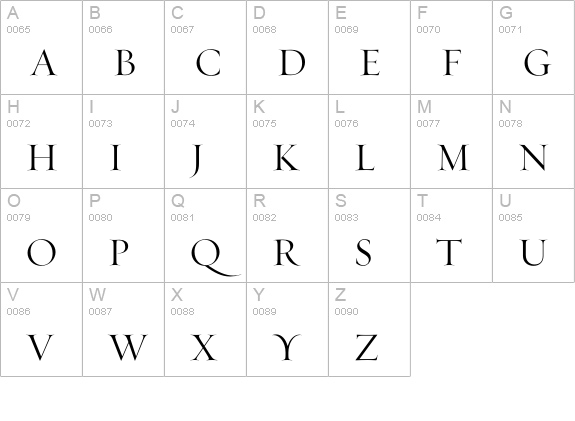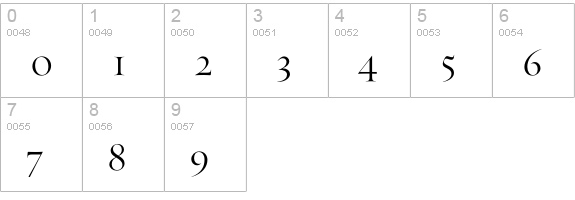
RequiemFine-HTF-SmallCaps Font Details
Introducing RequiemFine-HTF-SmallCaps, a breathtaking font that combines elegance with a touch of sophistication. This font showcases a unique blend of delicate curves and sharp edges, creating a harmonious balance that captures attention and leaves a lasting impression. RequiemFine-HTF-SmallCaps exudes a timeless charm that effortlessly adds a touch of class to any design project. Whether you're designing a logo, invitation, or website, this font will elevate your work to new heights, making it stand out in a sea of mediocrity. One of the most remarkable aspects of RequiemFine-HTF-SmallCaps is that it is freely available for download at FontsMarket.com. This means that you can enhance your creative endeavors without having to spend a dime. With its flawless design and accessibility, this font is a true treasure for both professional designers and typography enthusiasts alike. The meticulous attention to detail in RequiemFine-HTF-SmallCaps is evident in every stroke and curve. Each character is meticulously crafted to ensure perfect legibility and visual appeal, allowing your message to shine through with clarity and style. Its small caps variant adds a touch of versatility, enabling you to experiment with different typographic treatments and create stunning compositions. Whether it's used for headings, subheadings, or body text, RequiemFine-HTF-SmallCaps effortlessly adapts to various design contexts, seamlessly integrating with other fonts and elements to create a cohesive and visually pleasing composition. Its versatility ensures that it can be used across a wide range of projects, from branding and advertising to editorial design and beyond. When it comes to typography, RequiemFine-HTF-SmallCaps sets the bar high. Its refined aesthetic and attention to detail make it a font that demands attention and admiration. Experience the power of this exceptional typeface by downloading it for free at FontsMarket.com, and let your creativity soar to new heights.